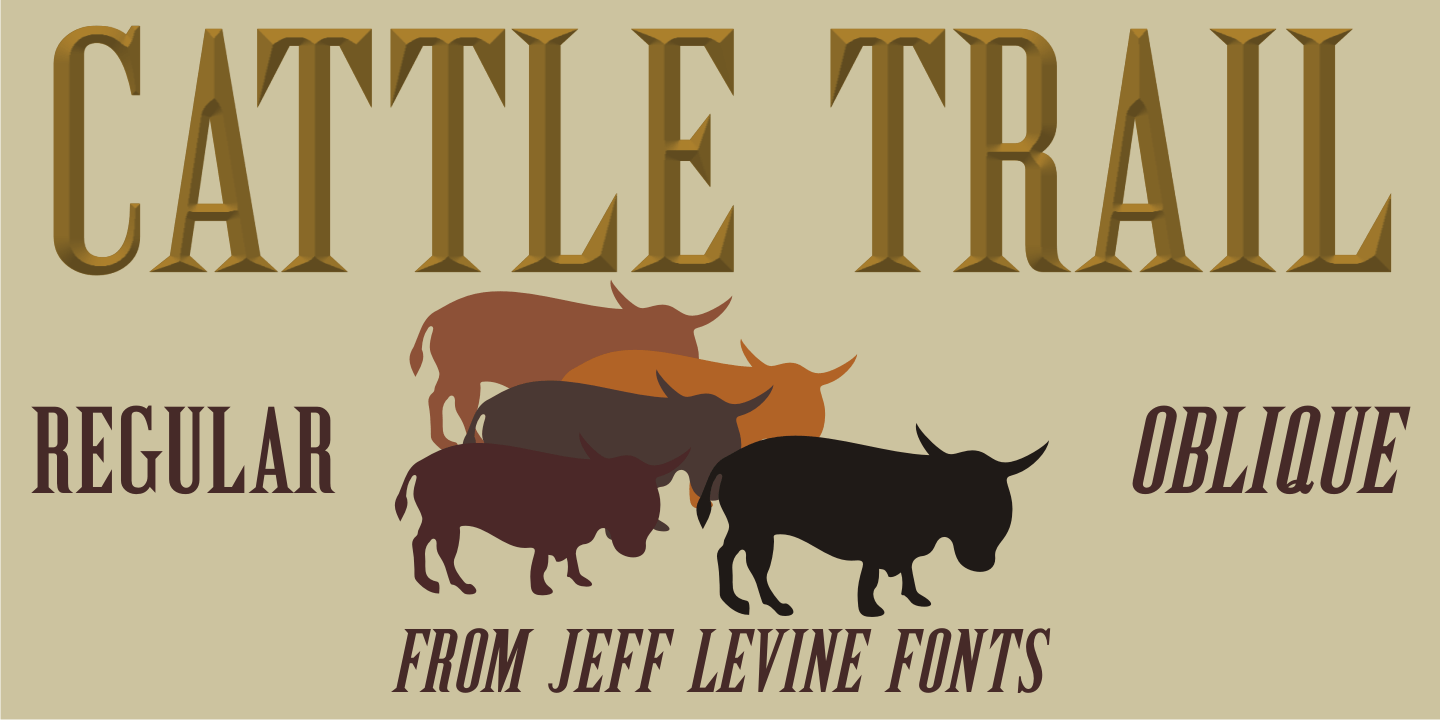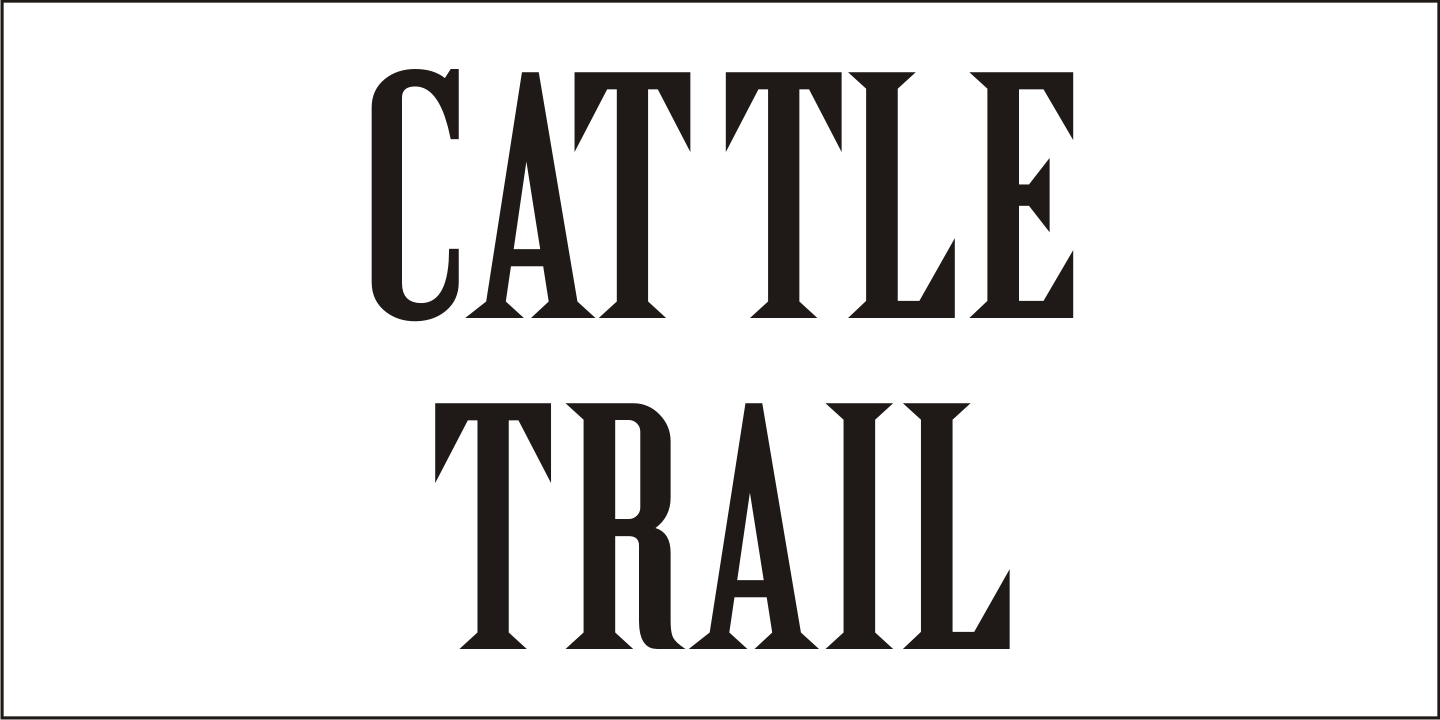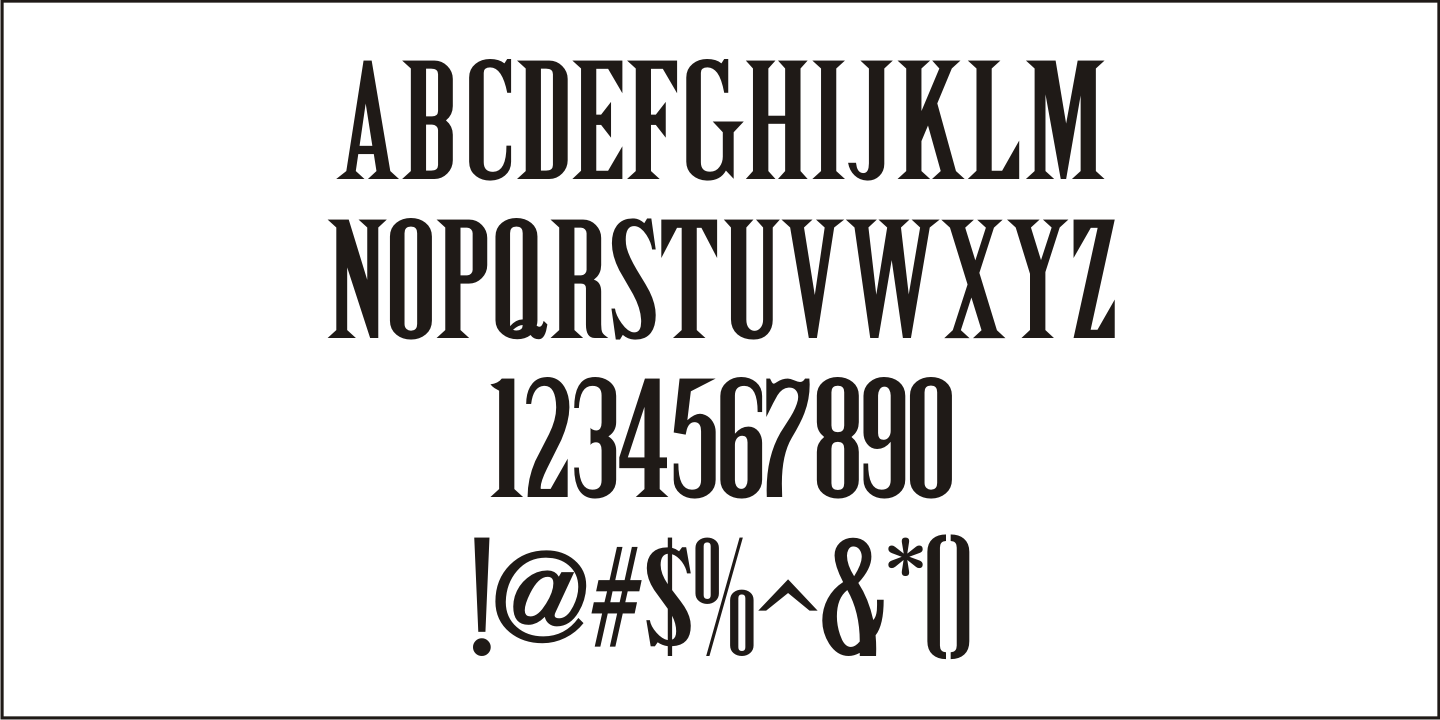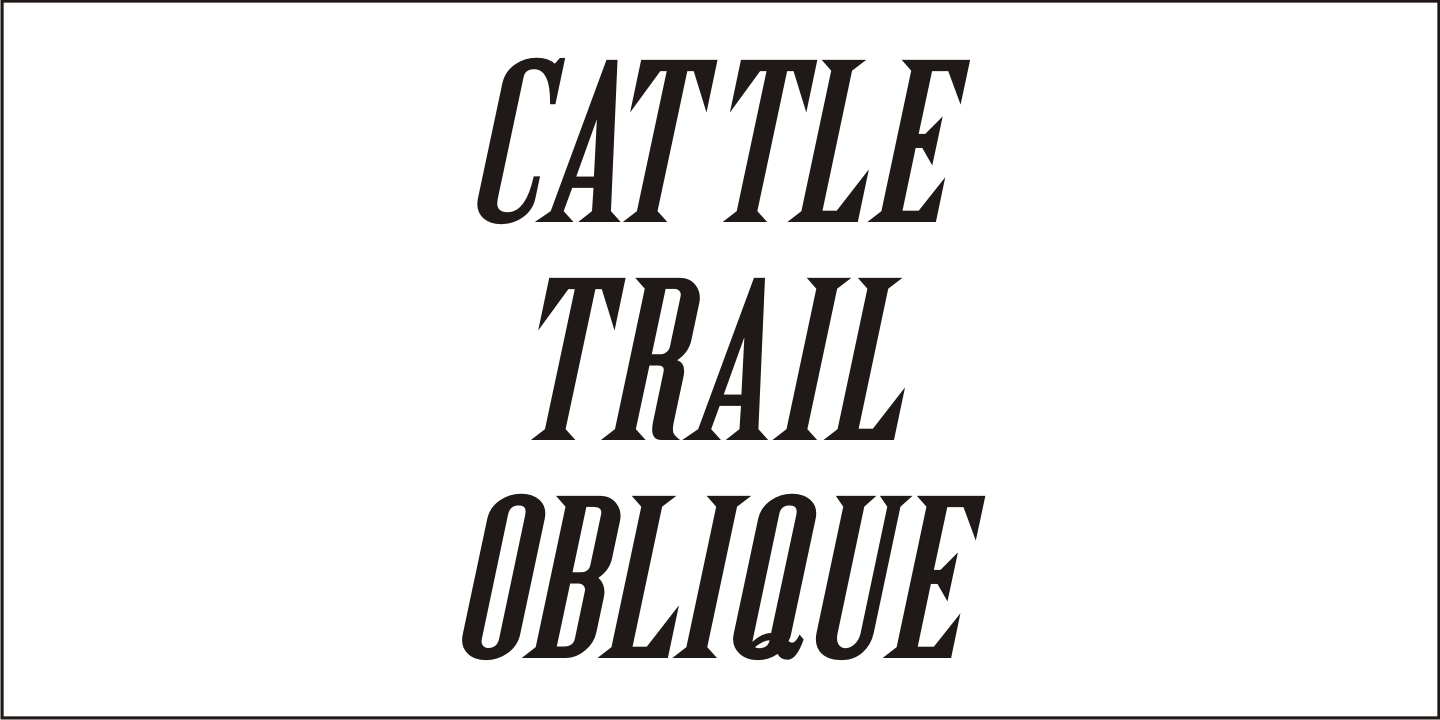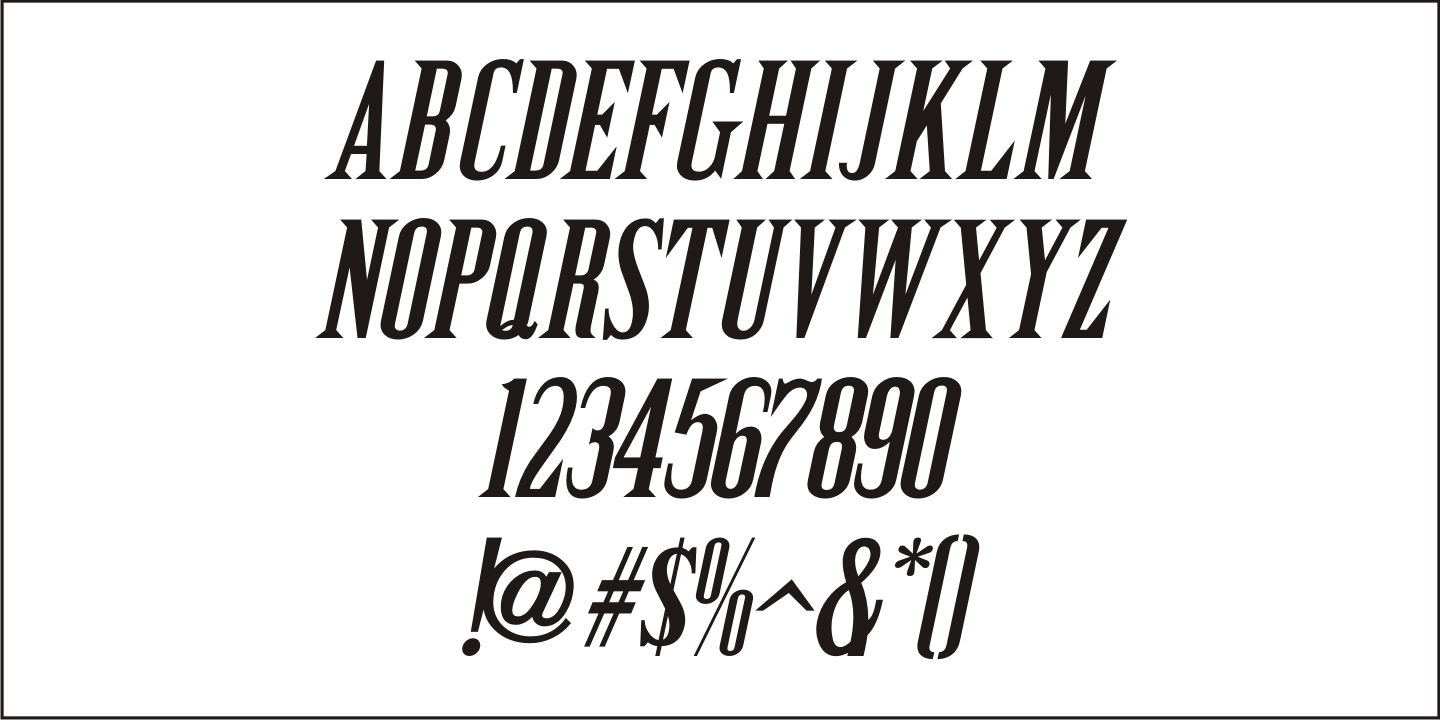
Cattle Trail
Modeled after an image of an almost complete set of Latin Condensed wood type, Cattle Trail JNL is available in both regular and oblique versions.